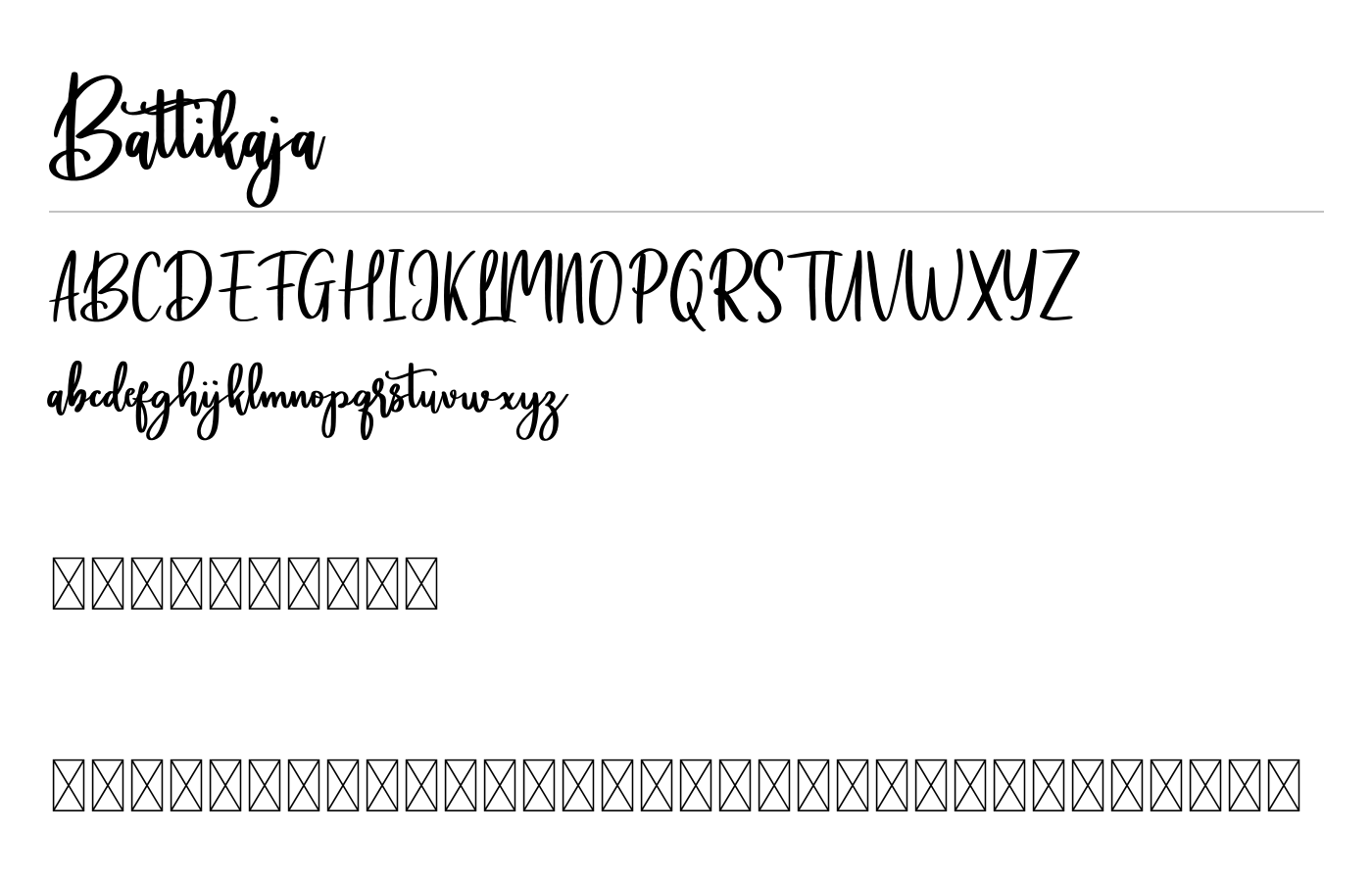
Battikaja is a lively and elegant script font with a hand-drawn, brush lettering style that gives it a personal and artistic touch. Its tall, slender uppercase letters paired with fluid, connected lowercase characters create a charming, modern feel perfect for creative branding, invitations, and stylish headlines. This font works well where a playful yet sophisticated look is desired, adding a friendly and authentic vibe to any design.
Battikaja Font
| Designer | Ana Natalia |